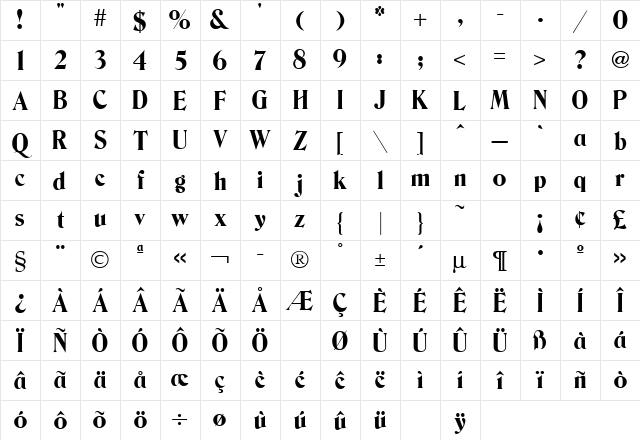
Bernase Regular
Design Context for Bernase
Bernase is a composed and adaptable typeface that performs quietly and consistently across a wide range of design contexts.